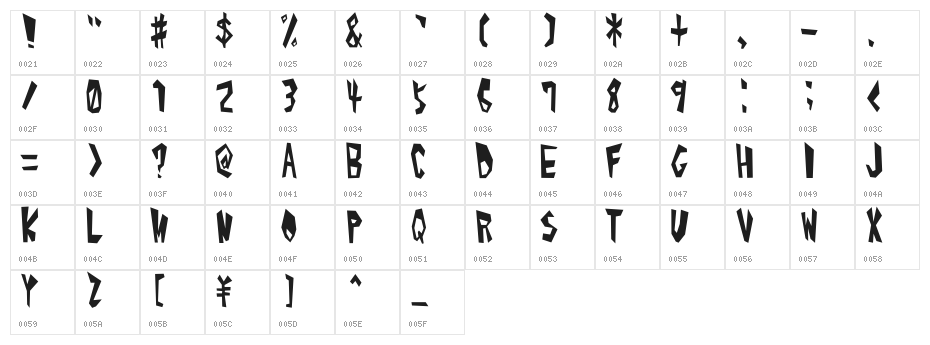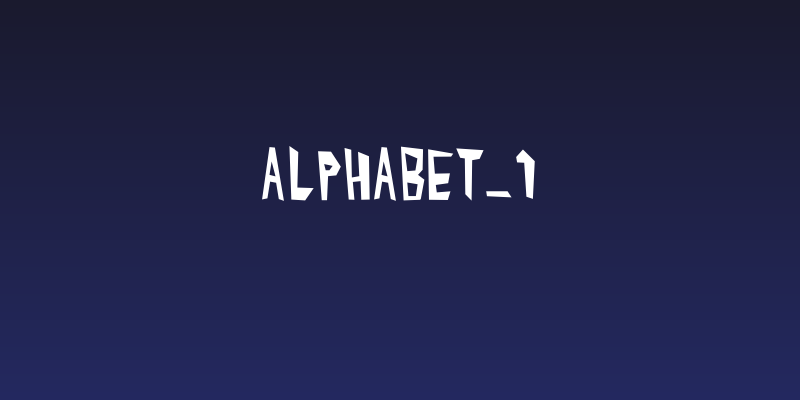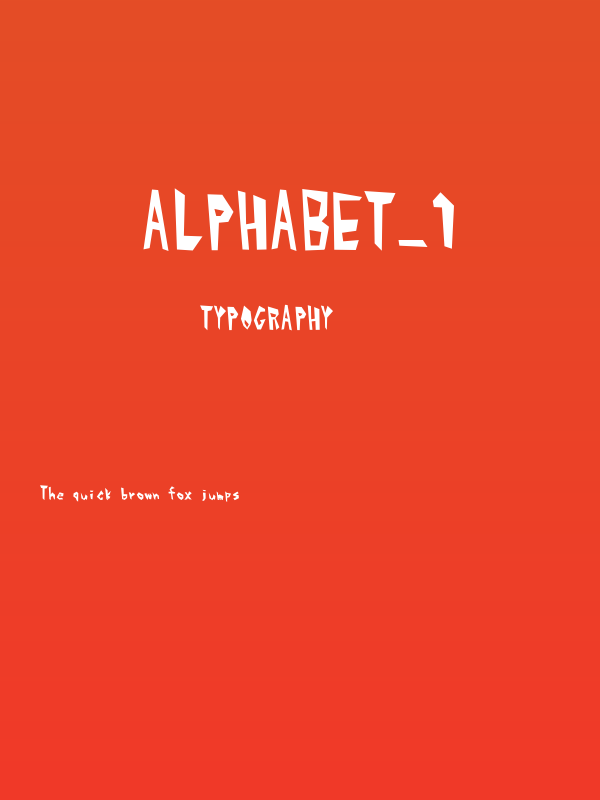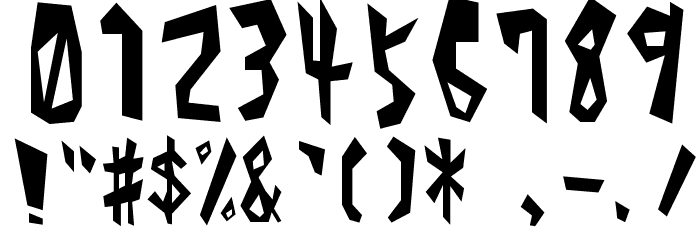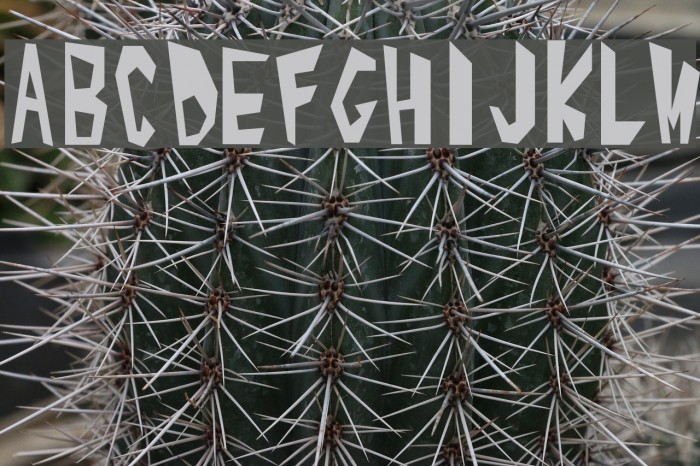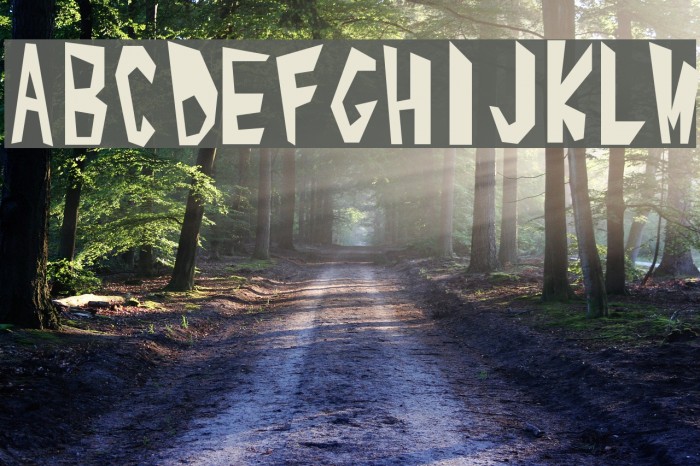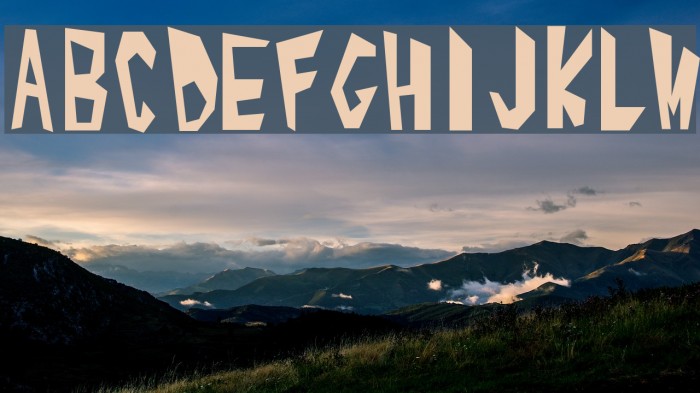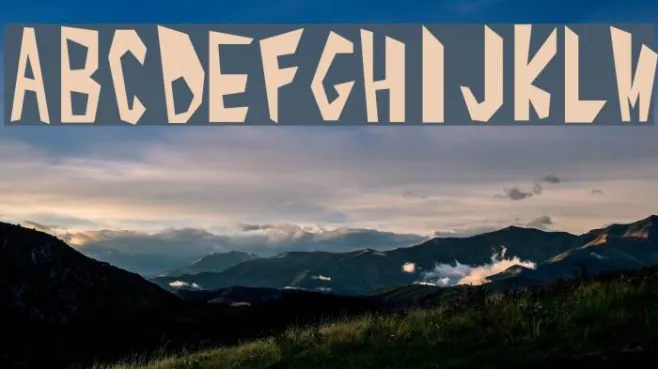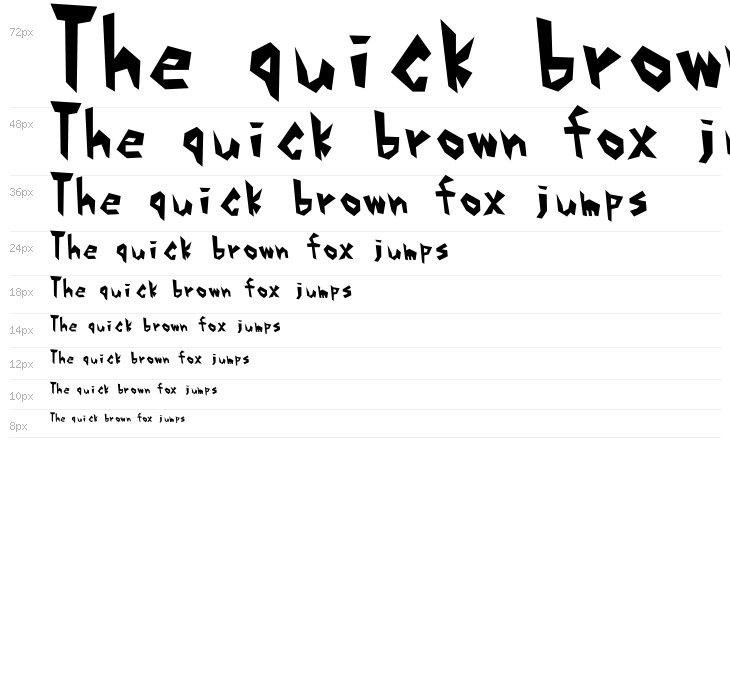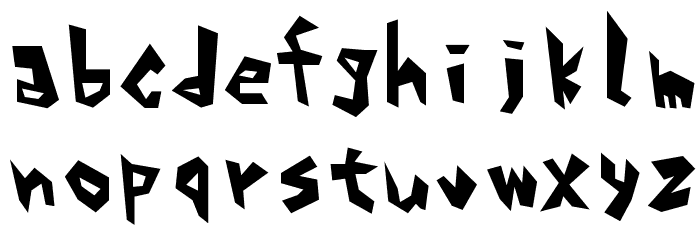
Alphabet_1 Font
Alphabet_1 Description
This font features a bold and edgy design with sharp, angular lines and a distinctly geometric appearance. The characters are highly stylized, with exaggerated angles and a slightly chaotic feel, making it stand out with a unique personality. The uppercase and lowercase letters maintain a consistent style, while the numbers and special characters follow the same angular theme. This font's boldness and distinctiveness make it ideal for projects that require a strong visual impact.
| Overall Style | Modern, Edgy |
| Proposed Projects | Ideal for poster designs, album covers, video game titles, and branding that requires a bold, standout look. |